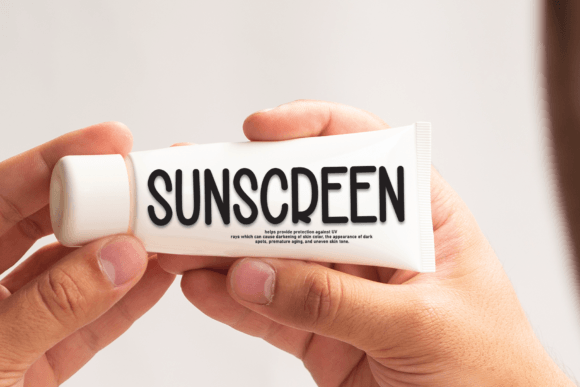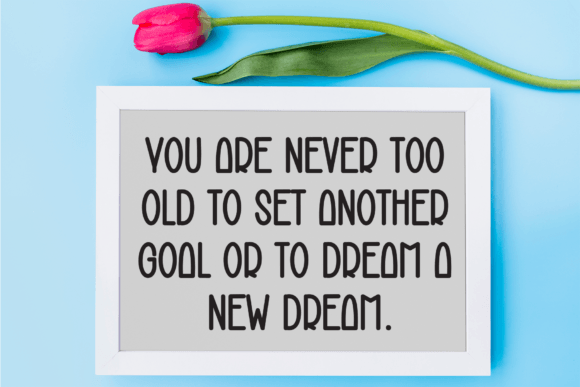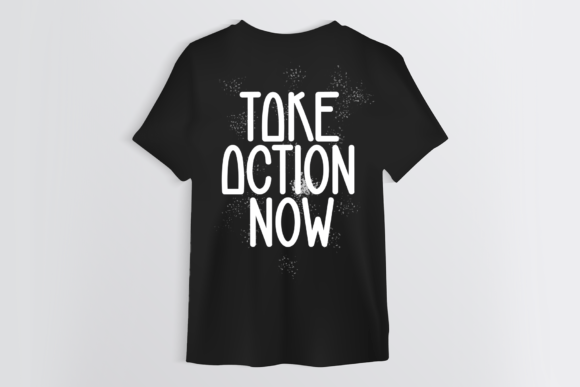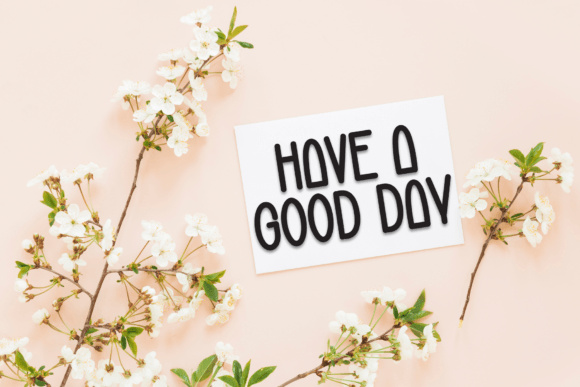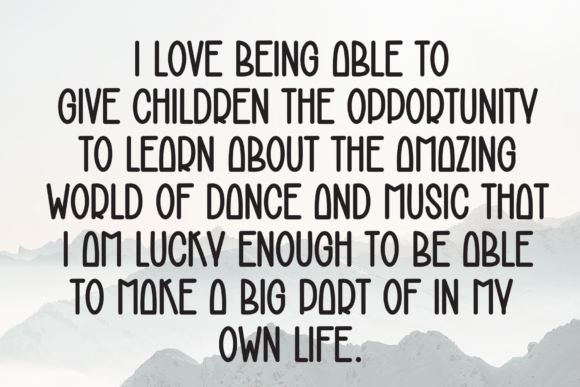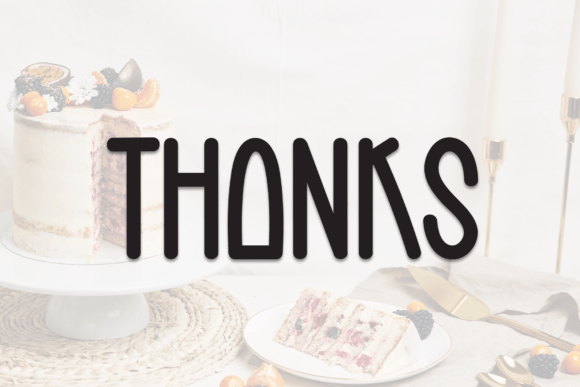
The Sweetest Addition to Your Design Toolbox: Cake Summer Font
I’ll never forget the summer I spent working on a wedding invitation project, searching for the perfect handwritten font to capture the bride’s bubbly personality. Hours of scrolling through font libraries and testing out different styles left me frustrated and stuck. That’s when I stumbled upon Cake Summer, a sweet and friendly handwritten font that instantly elevated my design. With its natural and unique style, Cake Summer opened up a world of creative possibilities, and I’m excited to share its charm with you.
An Honest Review of Cake Summer
So, what makes Cake Summer so special? Let’s dive into the good stuff and a few quirks to keep in mind.
- ✨ Unique and friendly vibe: Cake Summer’s hand-crafted feel makes it perfect for projects that need a personal touch.
- ✅ Highly versatile: From wedding invites to branding, and even packaging design, this font adapts seamlessly.
- 🎨 Works beautifully with illustrations: The font’s playful style pairs well with hand-drawn elements and graphics.
While Cake Summer is an amazing font, there are a few things to consider:
- 🤔 Legibility at small sizes: Like many handwritten fonts, Cake Summer can get a bit fuzzy at very small sizes. It’s best used at larger sizes (around 20px and up) for optimal readability.
- ⚠️ Limited formal use: Due to its casual, friendly nature, Cake Summer might not be the best fit for very formal or corporate projects.
A Practical Guide to Using Cake Summer
Now that you’re excited about Cake Summer, let’s explore how to make the most of it in your designs across different platforms.
The Story Behind Cake Summer
Imagine a small, seaside bakery where the owner, an avid typography enthusiast, decided to create a custom font for her shop’s branding. She wanted something that captured the warmth and friendliness of her bakery, where every cake and pastry was made with love. And so, Cake Summer was born — a font that embodies the joy and simplicity of summer days spent baking and sharing sweet treats with loved ones.
Q: Is Cake Summer suitable for body text?
A: While Cake Summer is beautiful, its readability for long body text might be limited due to its handwritten nature. It’s best used for headings, titles, and short paragraphs.
Q: How does Cake Summer compare to other script fonts?
A: Cake Summer stands out with its friendly, approachable vibe. While other script fonts might offer more formality or elegance, Cake Summer brings a unique warmth and playfulness to your designs.